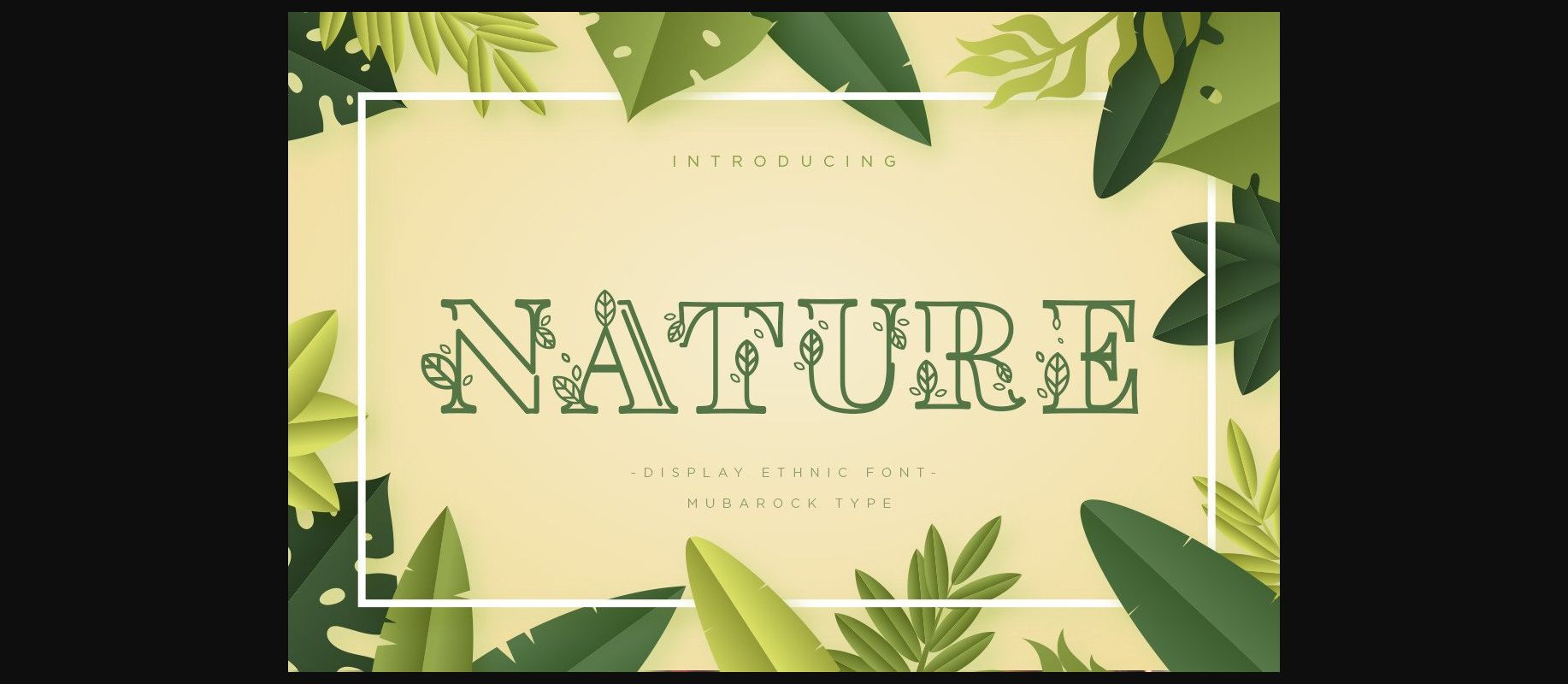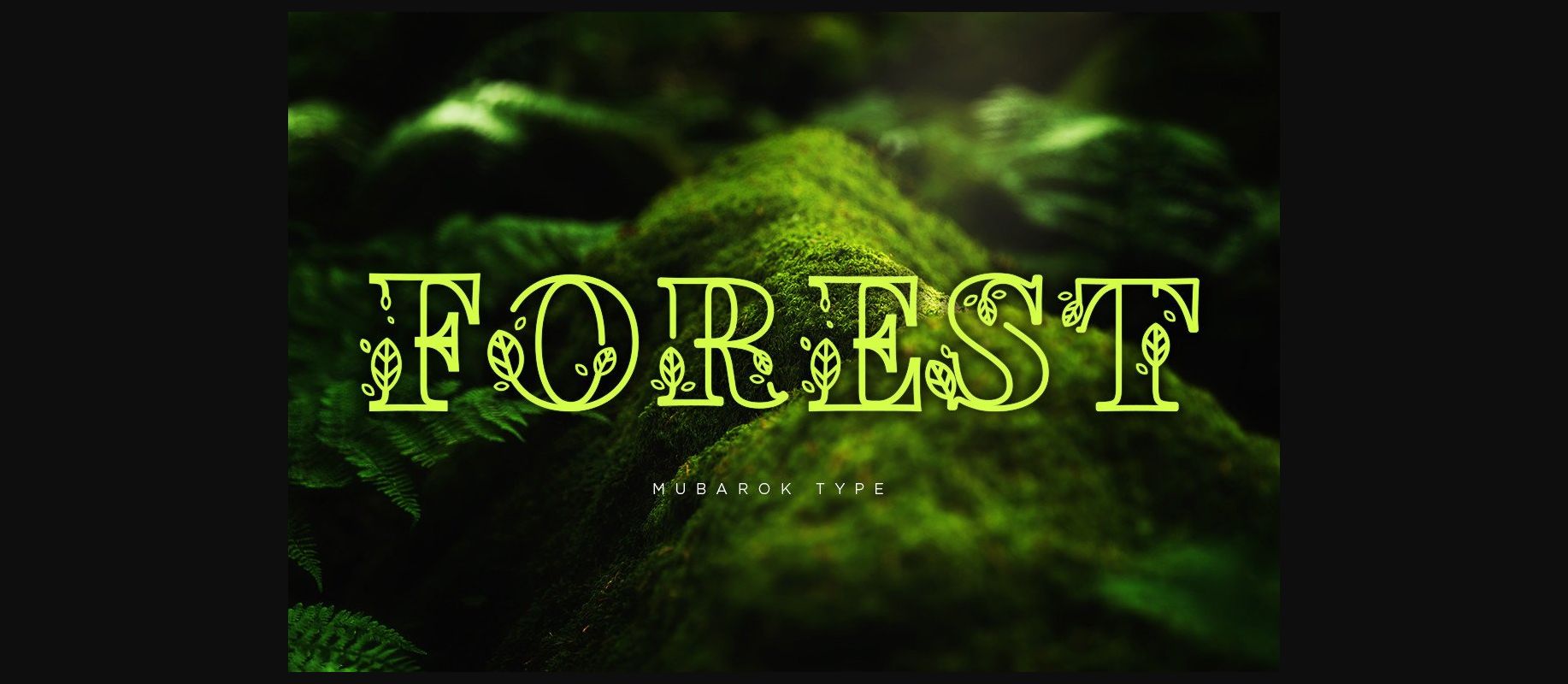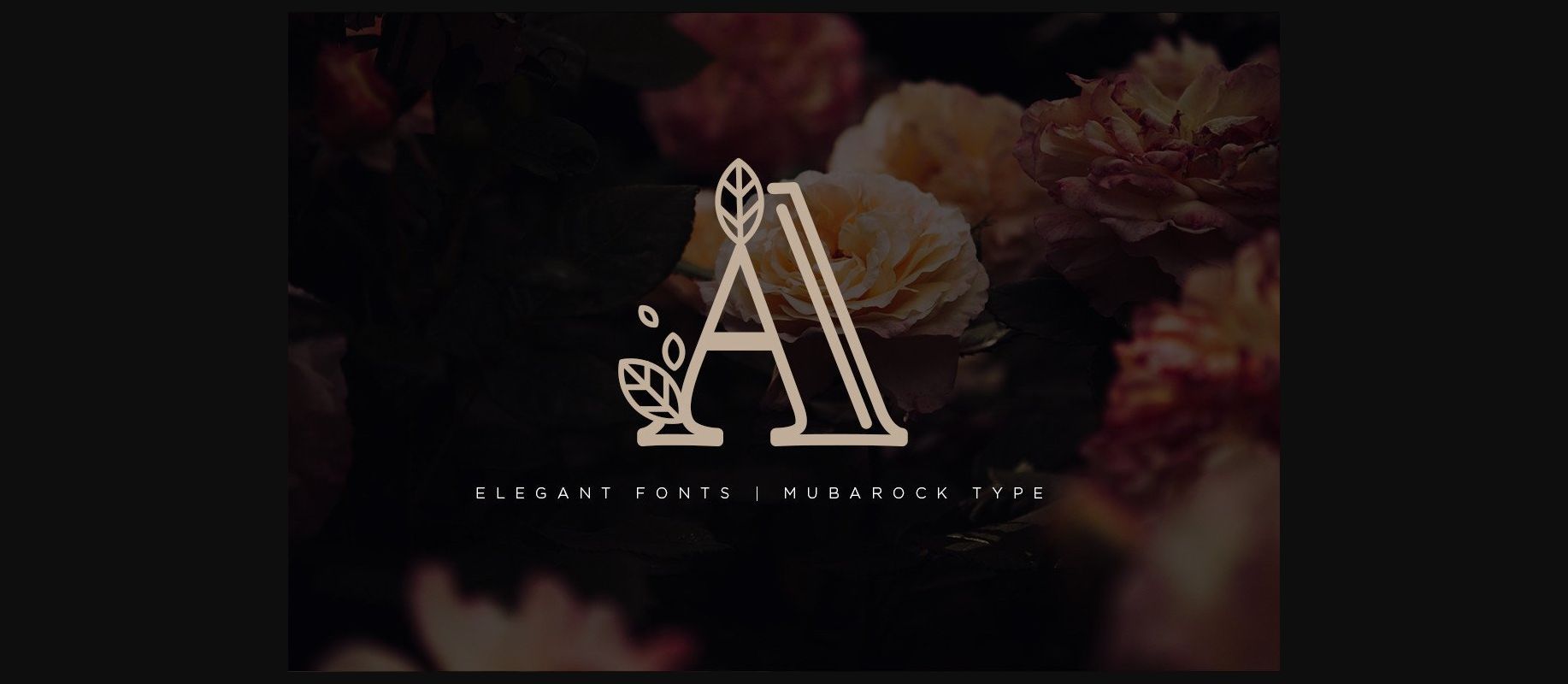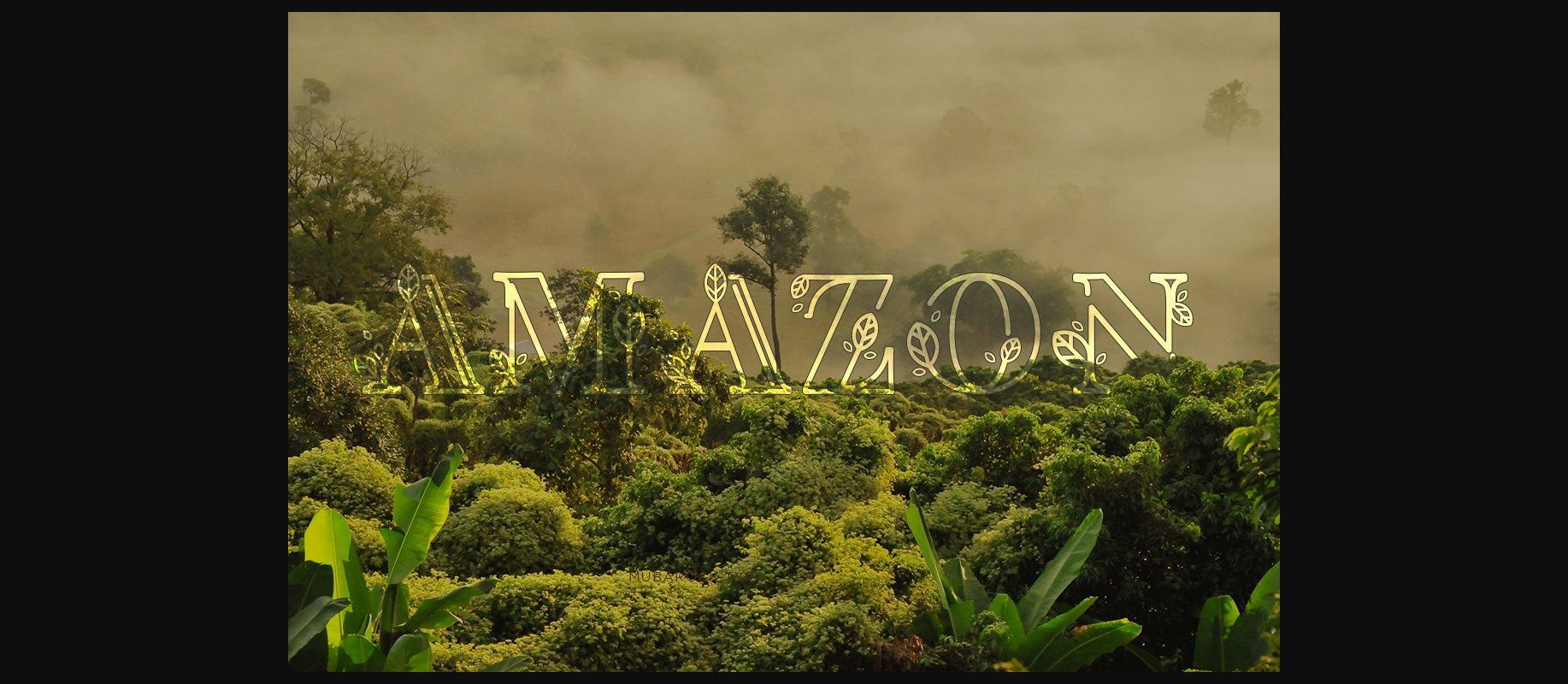
About Nature Font
Nature is an elegant, leaf-shaped font combined with a unique serif typeface that was carefully crafted to become a true favorite. This font can be used to write titles, invitations, letters, logos or anything that needs a strong, botanical and organic vibe.